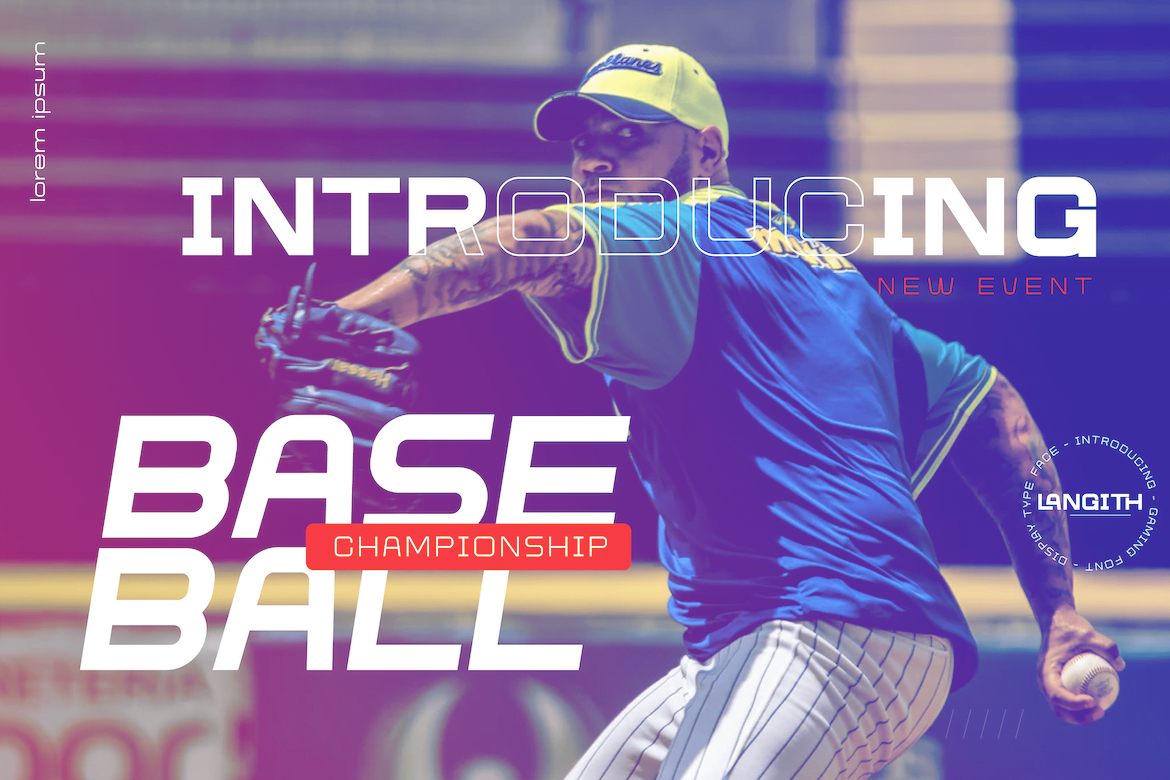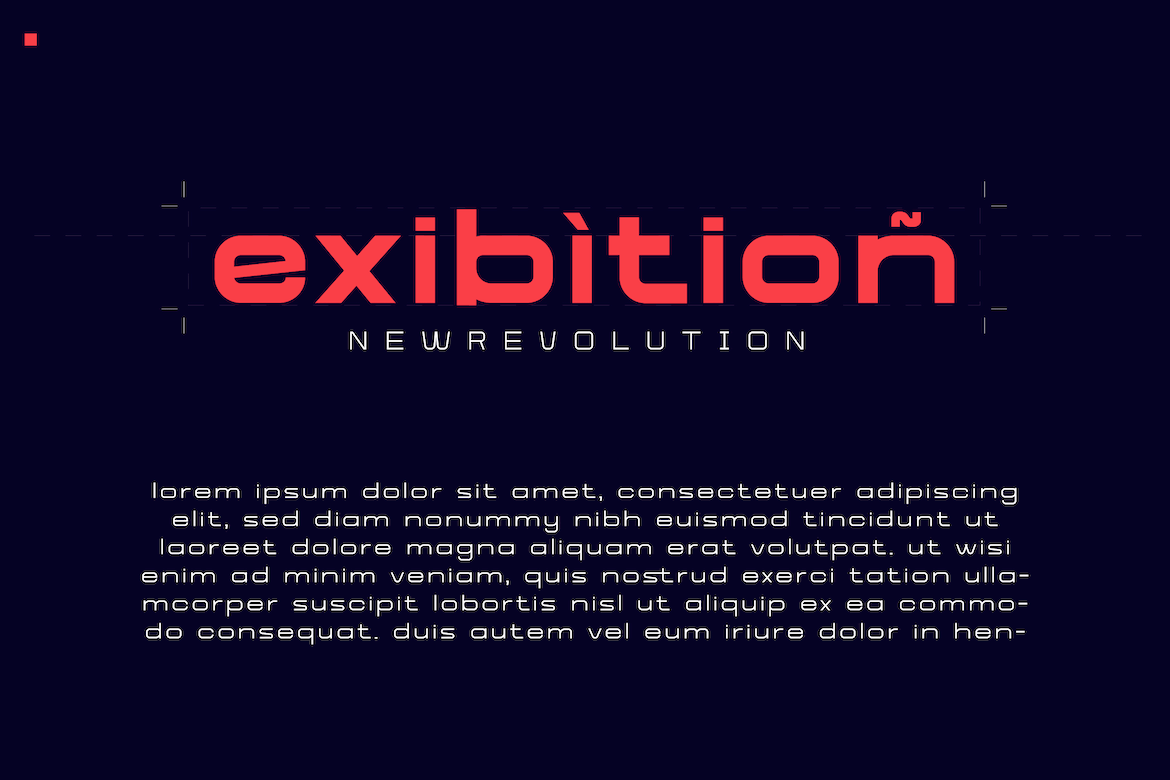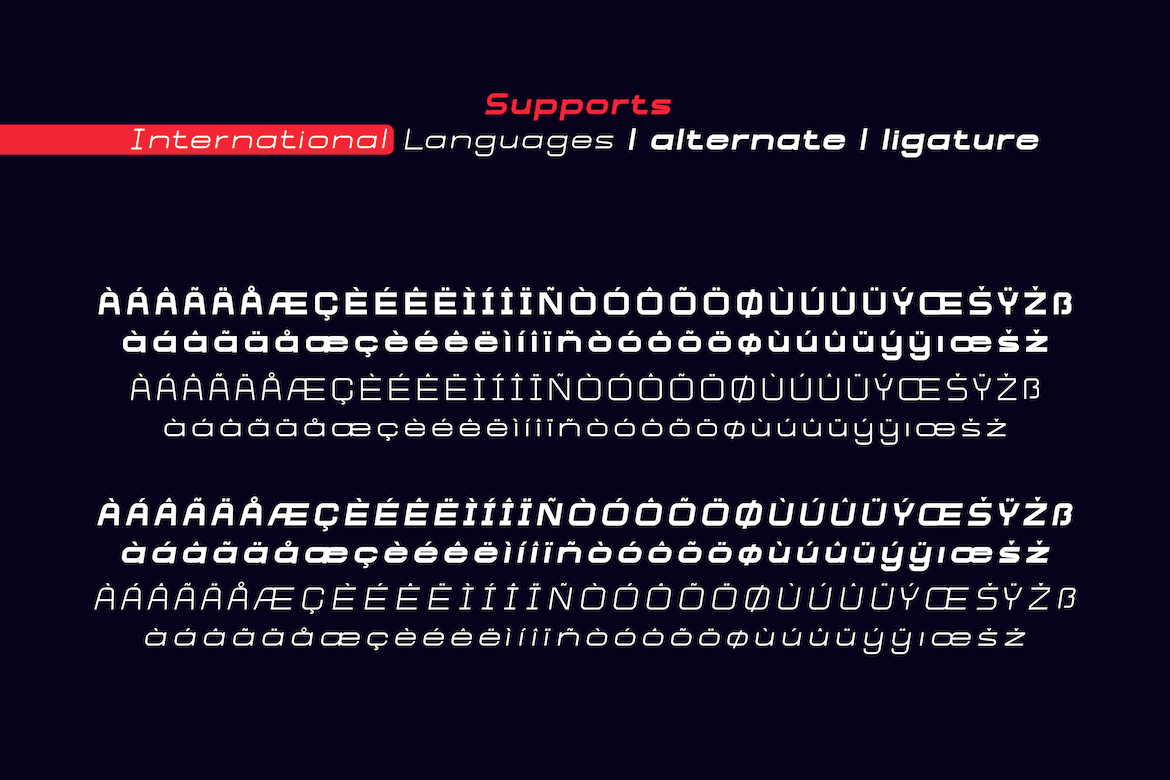
- Langith
Introducing Langith font, a very simple and clean san serif family, there is artistic value in this font, both from the width of the letters, corners and spacing between letters, this font is also equipped with ligatures. start creating incredible designs with this font
This font is perfect for games, sporting events, branding, banners, posters, movie titles, book titles, quotes, clothing, logotypes, and more.
of course, your various design projects will be perfect and extraordinary if you use this font because this font is equipped with a complimentary font family, both for titles and subtitles and sentence text.
- Fonts include multilingual support for; Afrikaans, Albanian, Croatian, Czech, Danish, Dutch, English, Estonian, Finnish, French, German, Hungarian, Italian, Norwegian, Polish, Portuguese, Slovak, Slovenian, Spanish, Swedish